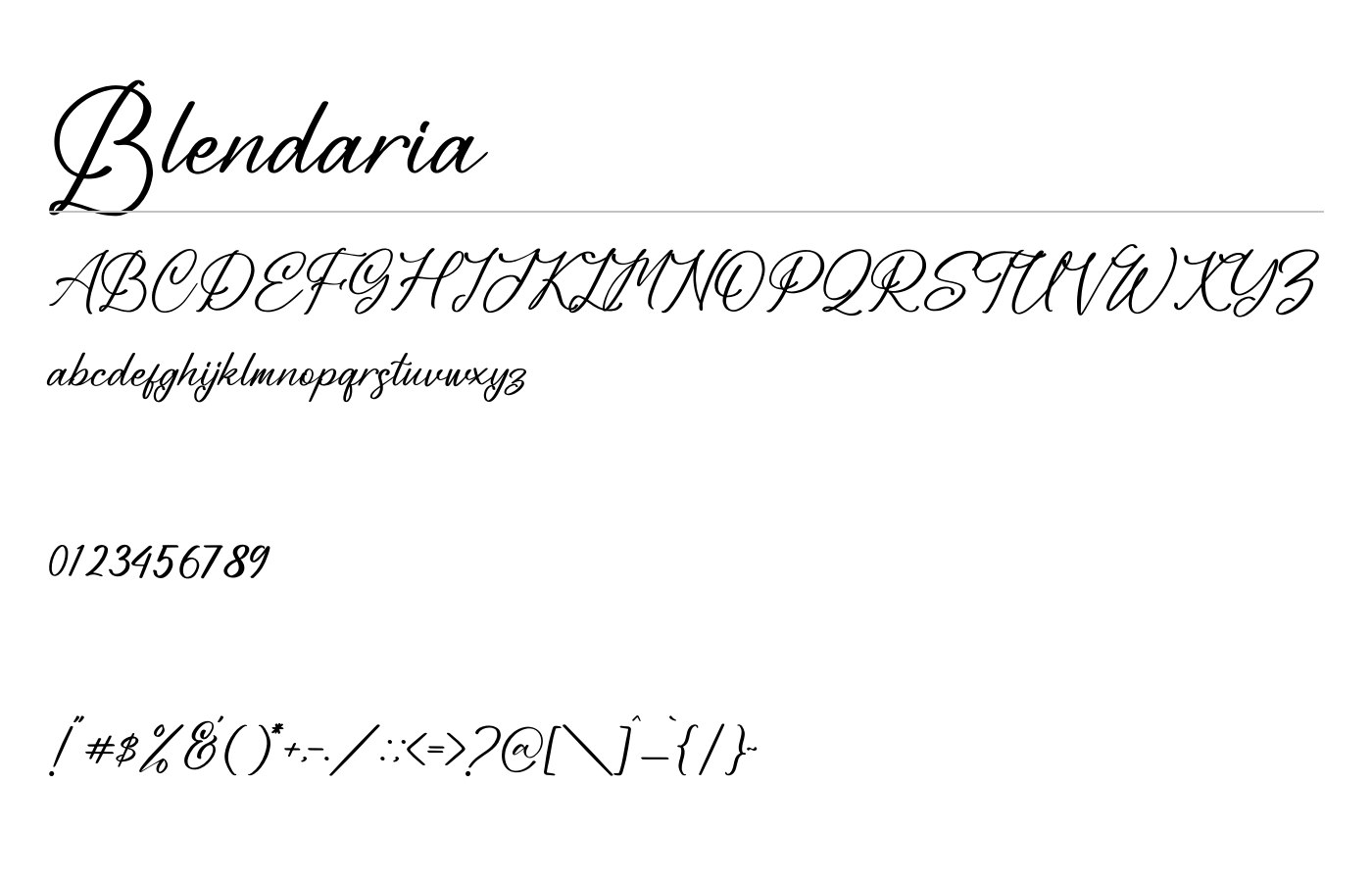
Blendaria is an elegant script font with flowing, delicate strokes and a refined, handwritten feel. Its slender and slightly cursive letterforms convey a sense of sophistication and grace, making it perfect for invitations, branding, and other design projects where a touch of elegance and personality is desired. This font works well in contexts that call for a stylish, feminine, and classic look.
Blendaria Font
About Blendaria Font